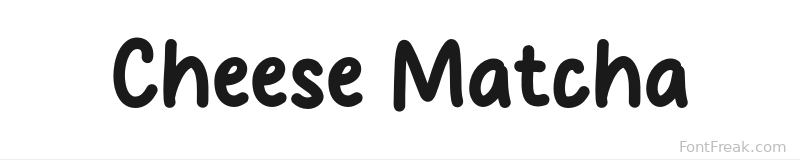
Cheese Matcha
About Cheese Matcha
The Cheese Matcha font by MJType is a delightful display typeface that captures a playful yet modern aesthetic, perfect for a variety of design projects. This font features rounded, soft edges that lend a friendly and inviting feel, making it suitable for both casual and sophisticated applications. With its moderate stroke weight and minimal contrast, Cheese Matcha offers excellent legibility while maintaining a unique character that stands out in any layout.
The spacing in Cheese Matcha is carefully balanced, ensuring that each letter flows seamlessly into the next, enhancing readability without compromising on style. This font is adorned with subtle decorative elements that evoke a sense of whimsy, making it an ideal choice for designs that aim to capture attention and evoke emotion.
Cheese Matcha is particularly well-suited for creative projects such as restaurant menus, where its charming appearance can enhance the dining experience. It also works beautifully for children's book covers, invitations to casual gatherings, and vibrant social media graphics. Small business owners looking to establish a warm and approachable brand identity will find this font especially appealing.
What sets Cheese Matcha apart is its ability to blend fun and functionality seamlessly. It invites creativity while ensuring clarity in communication, making it a go-to choice for anyone looking to make a memorable impression in their design work. Whether for print or digital, Cheese Matcha adds a touch of joy that resonates with viewers.